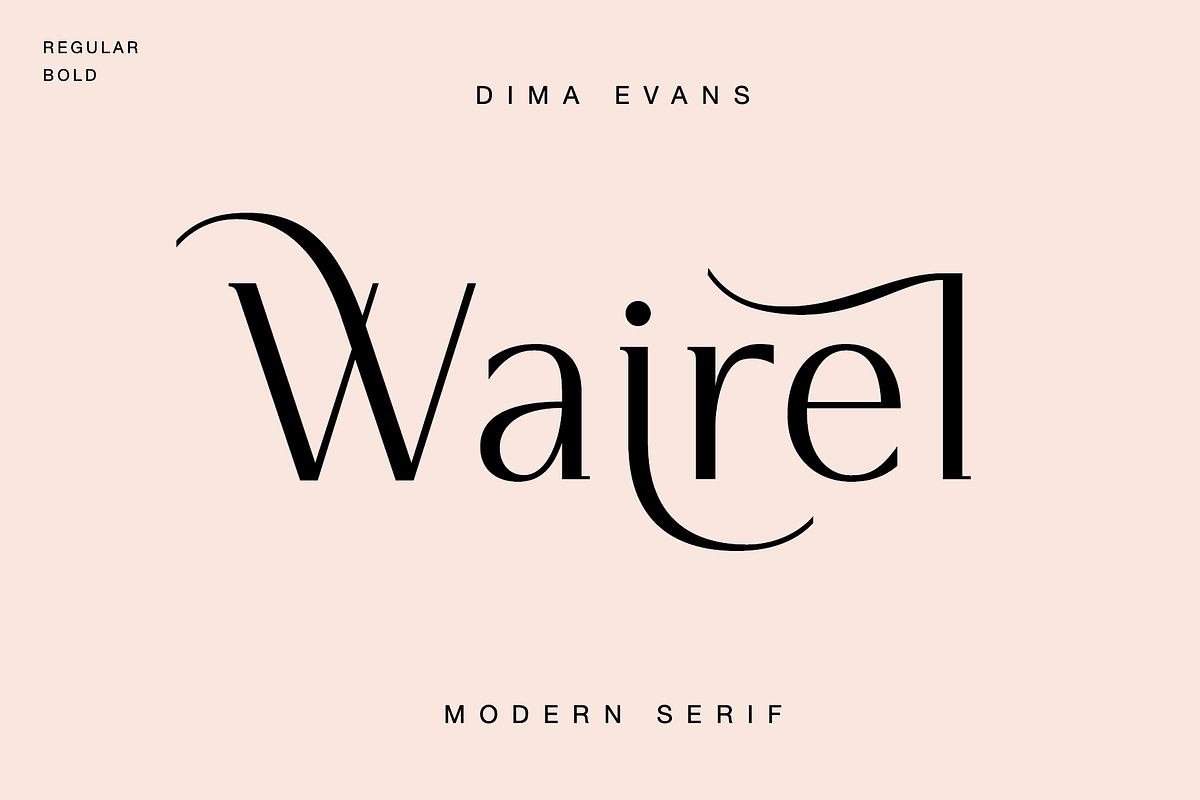
Wairel Modern Serif Family Font Free Download is a clean, sophisticated serif typeface family designed for versatility and elegance. With its contemporary lines, balanced letterforms, and a wide range of weights, this font family is perfect for editorial design, branding, websites, corporate communications, and high-end print materials. The modern serifs give it a timeless appeal, while the sleek structure ensures readability across various mediums.
Using the Wairel Modern Serif Family Font Free Download adds a touch of class and professionalism to your typography. Whether you're working on a luxury brand, designing an editorial layout, or creating web content, this font family gives you the flexibility to adapt to different design styles while maintaining a polished, sophisticated look.